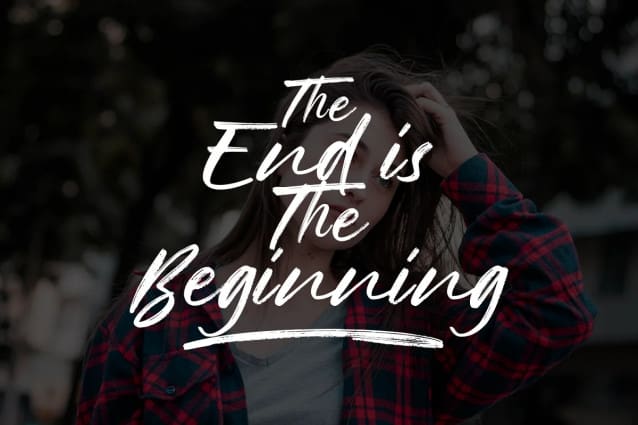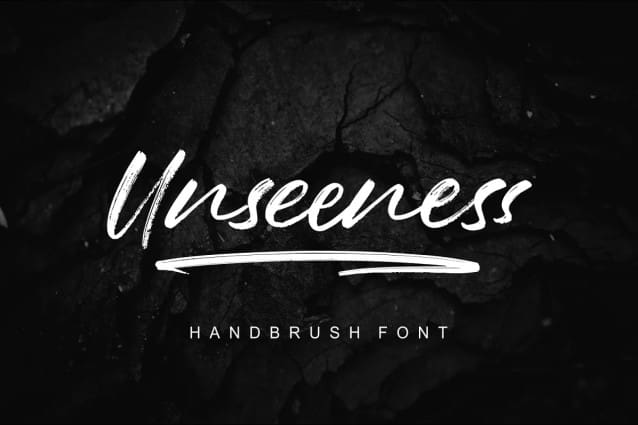
Unseeness Brush Font
Unseeness Brush Font, a cool, classy, and versatile brush font with loose grooves. Unseeness Handbrush is handcrafted/handwritten with a brush pen to provide a stylish script that is guaranteed to add eye-catching appeal to your logo designs, brand imagery, handwritten quotes, product packaging, merchandise & social media posts.